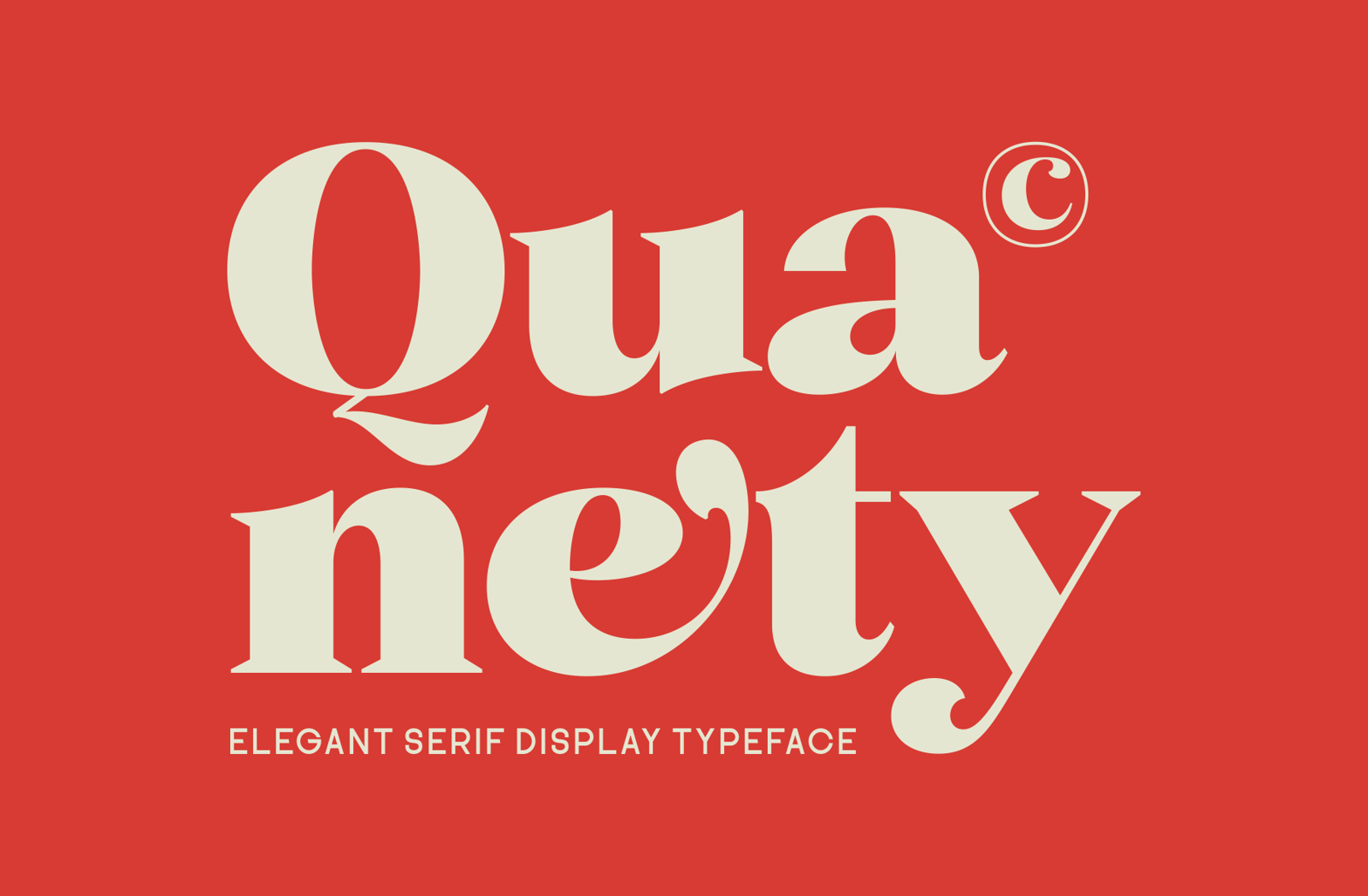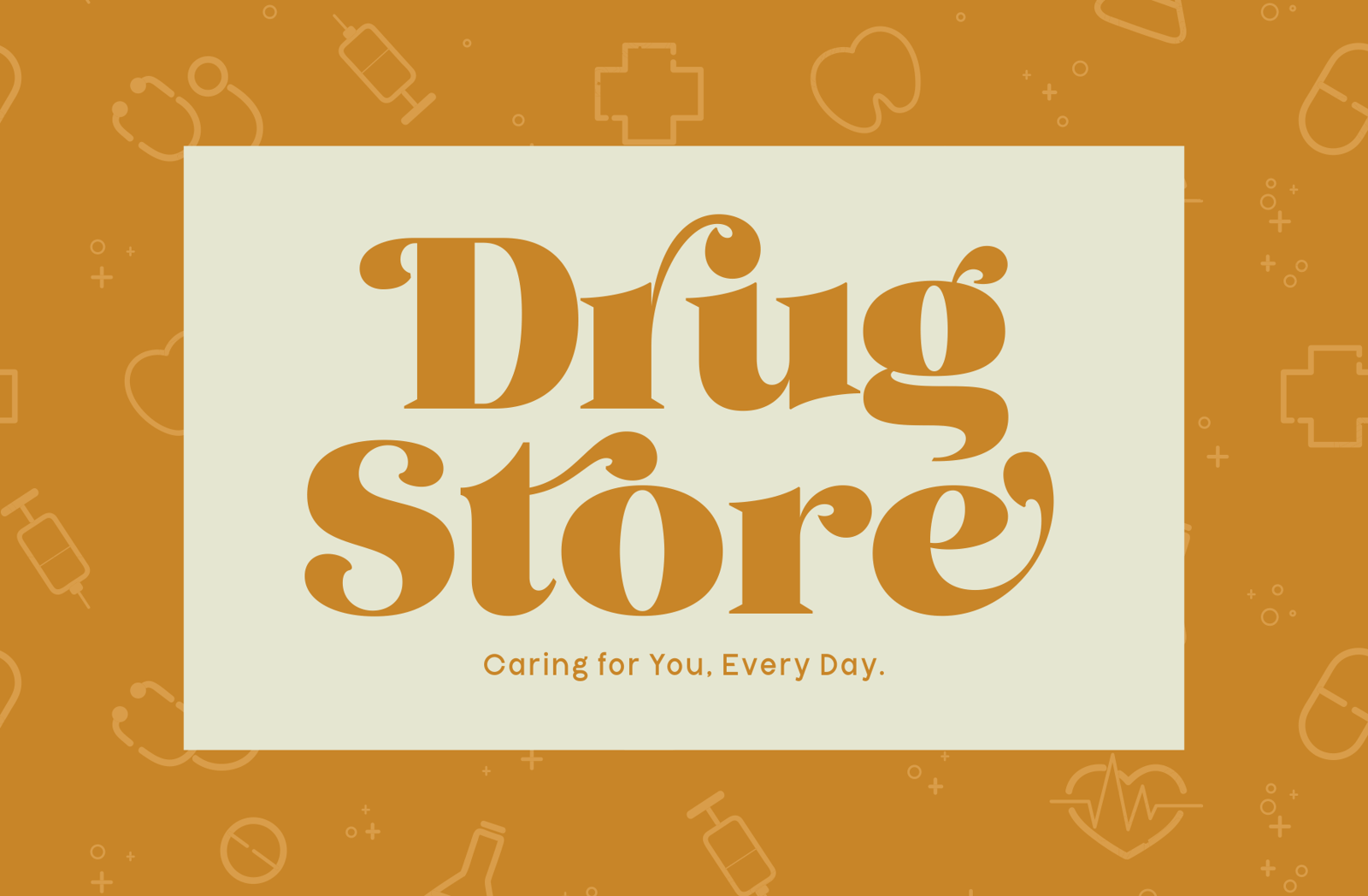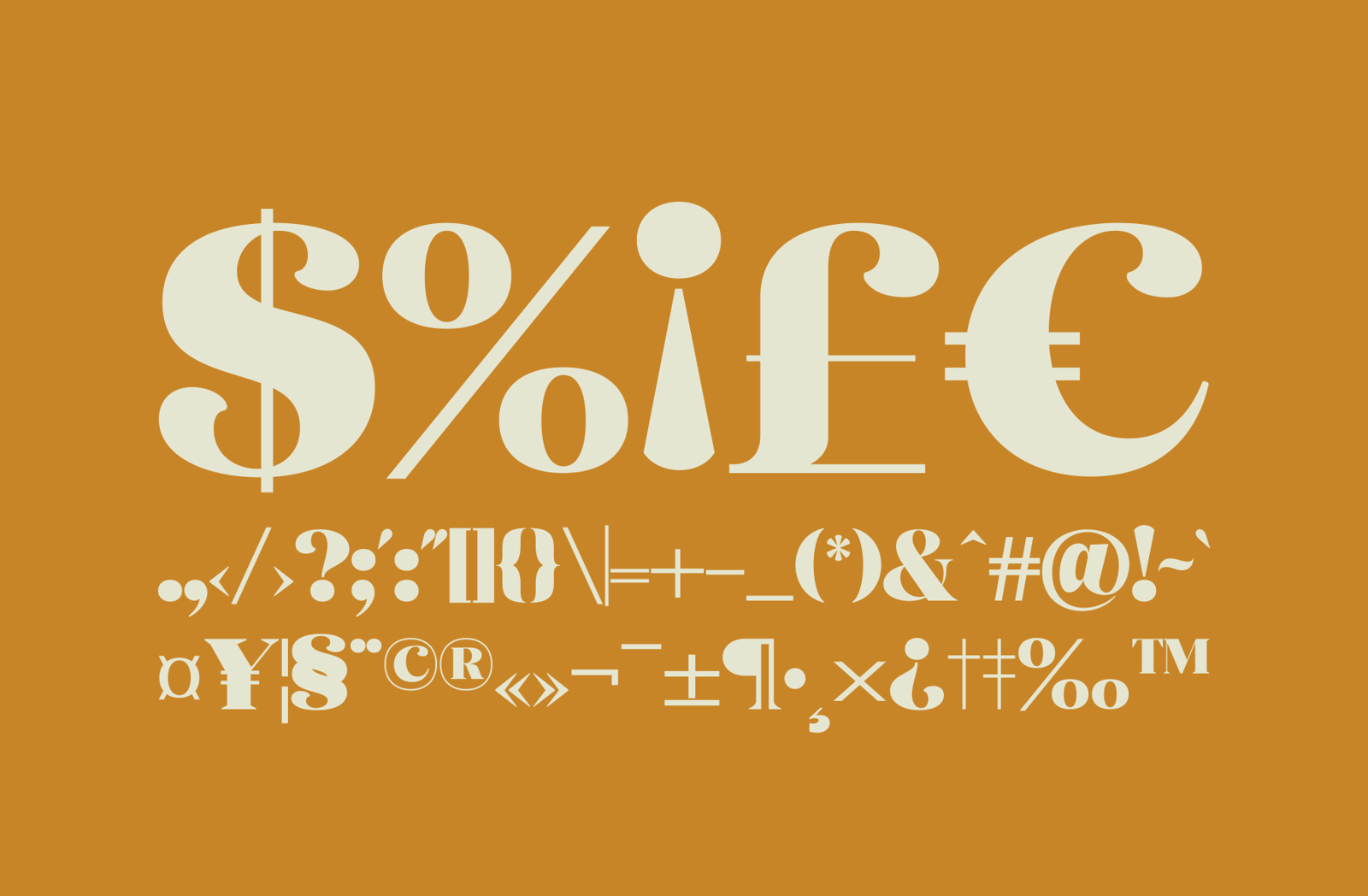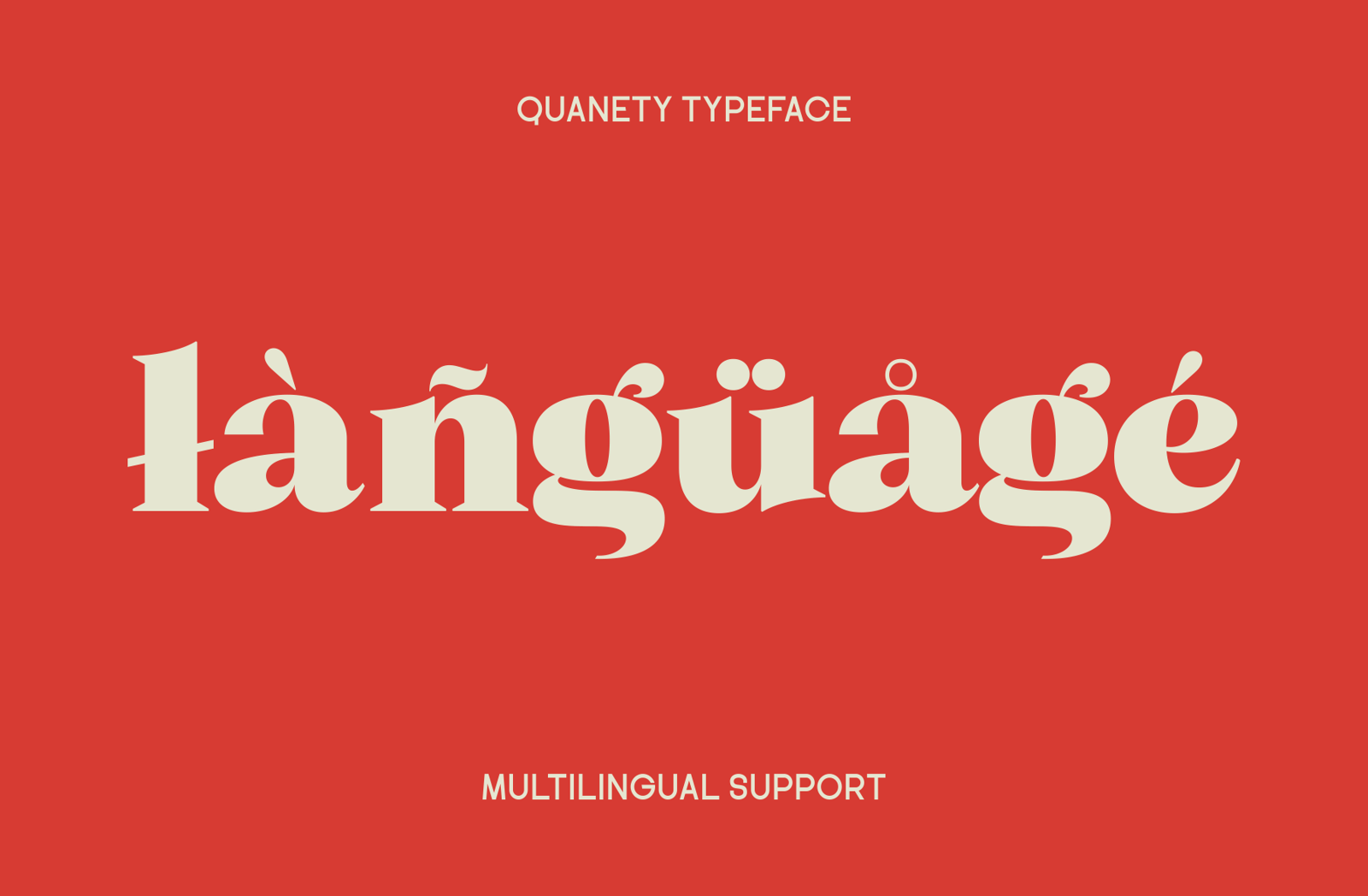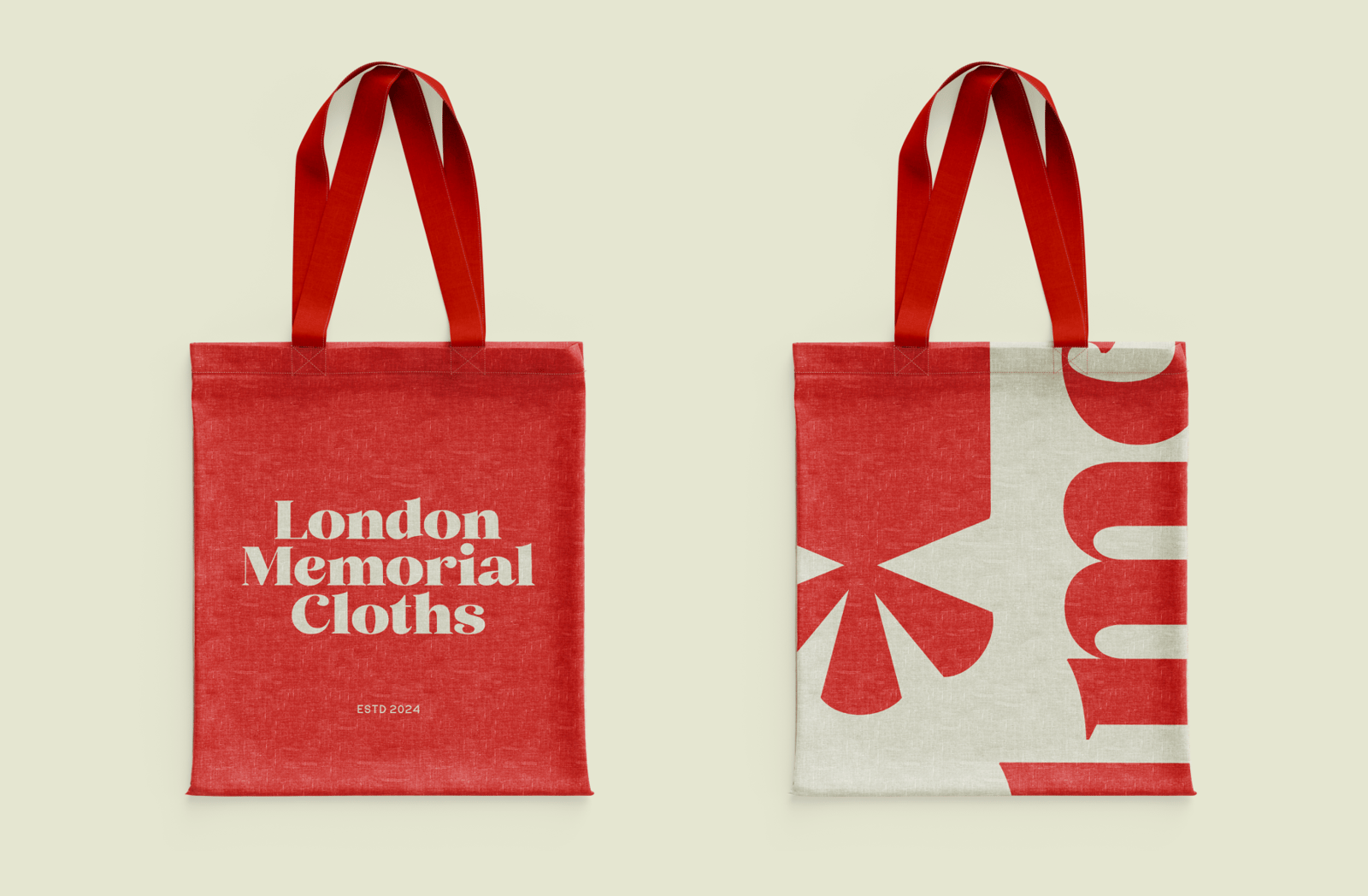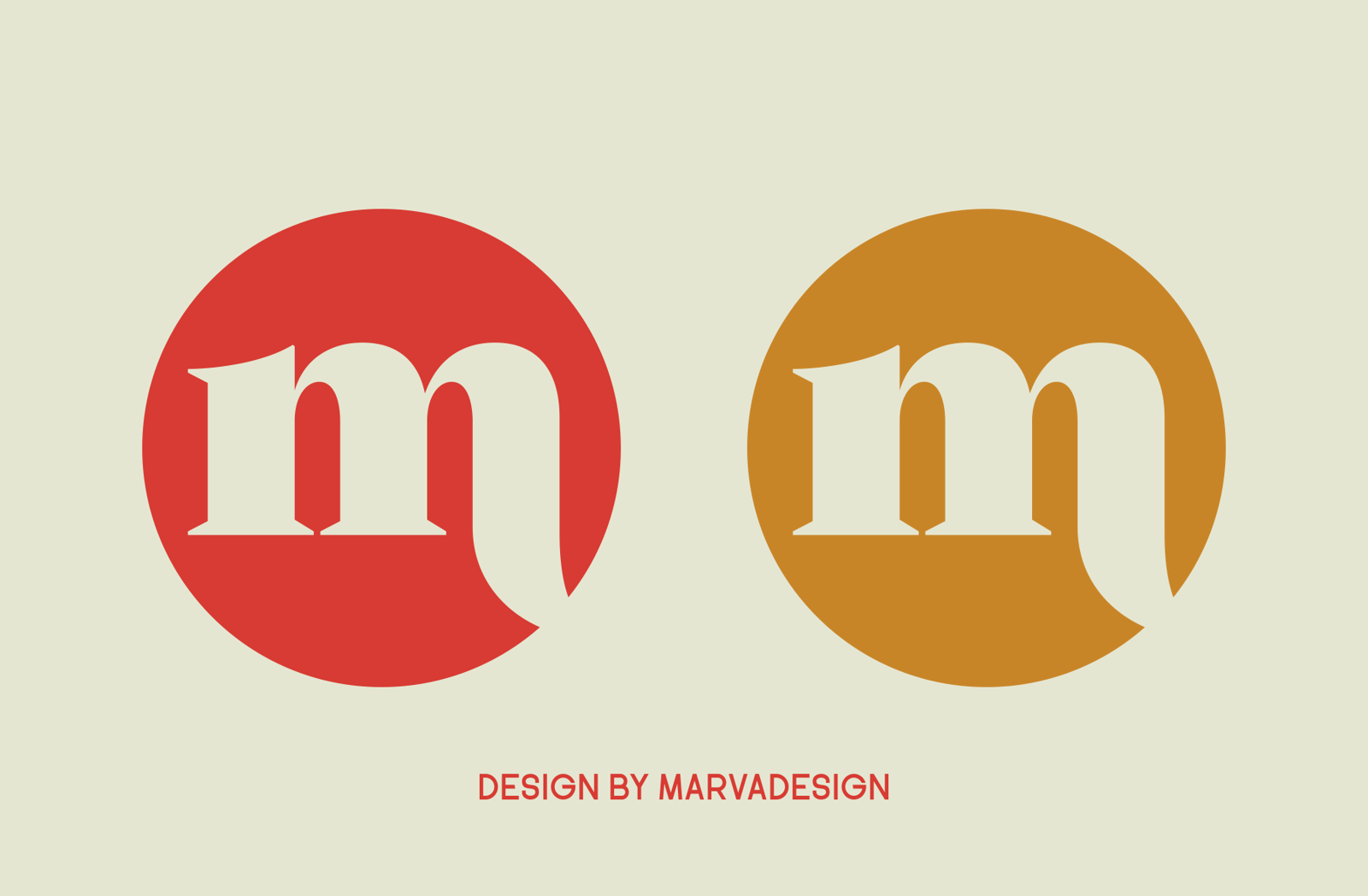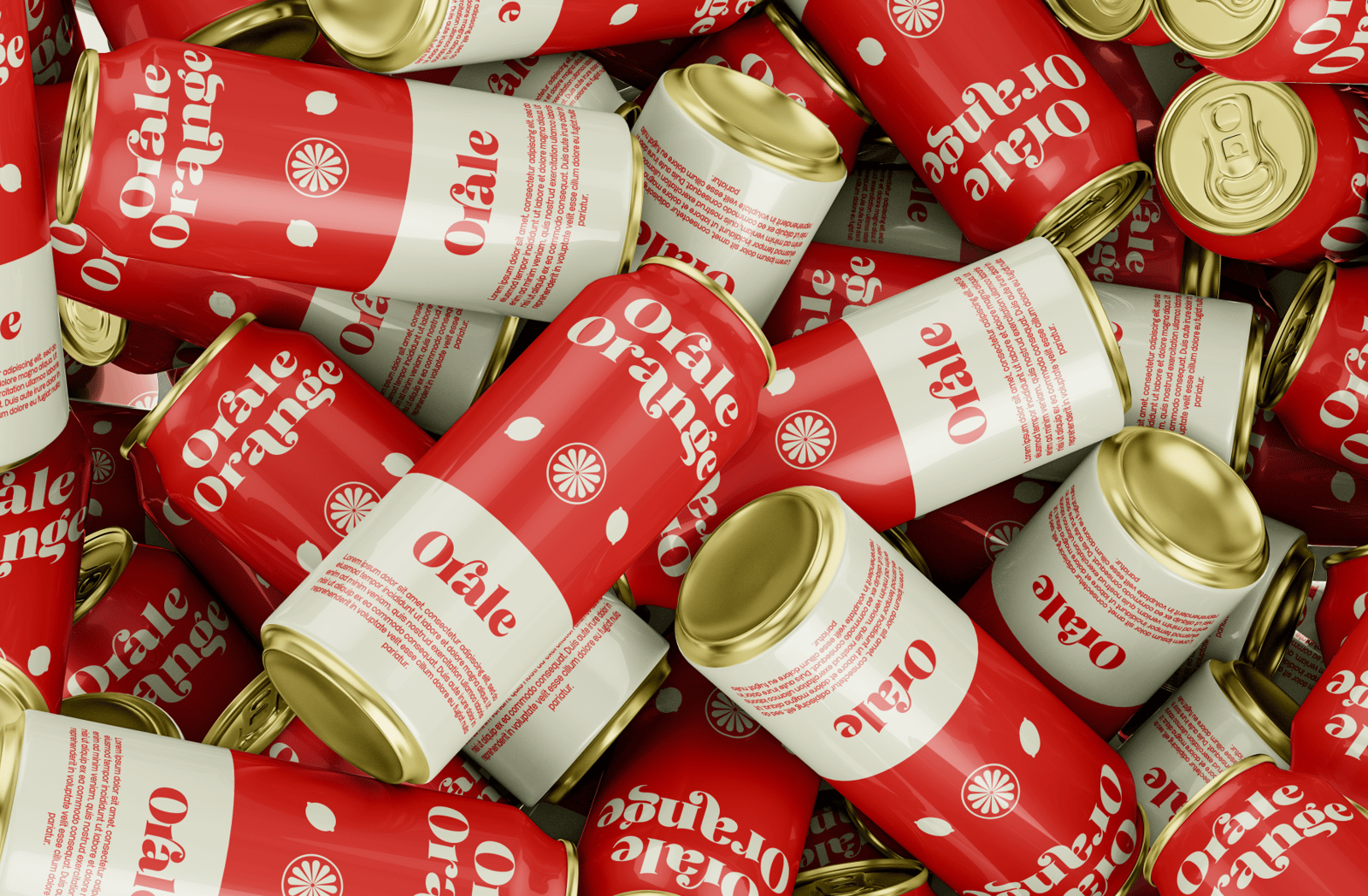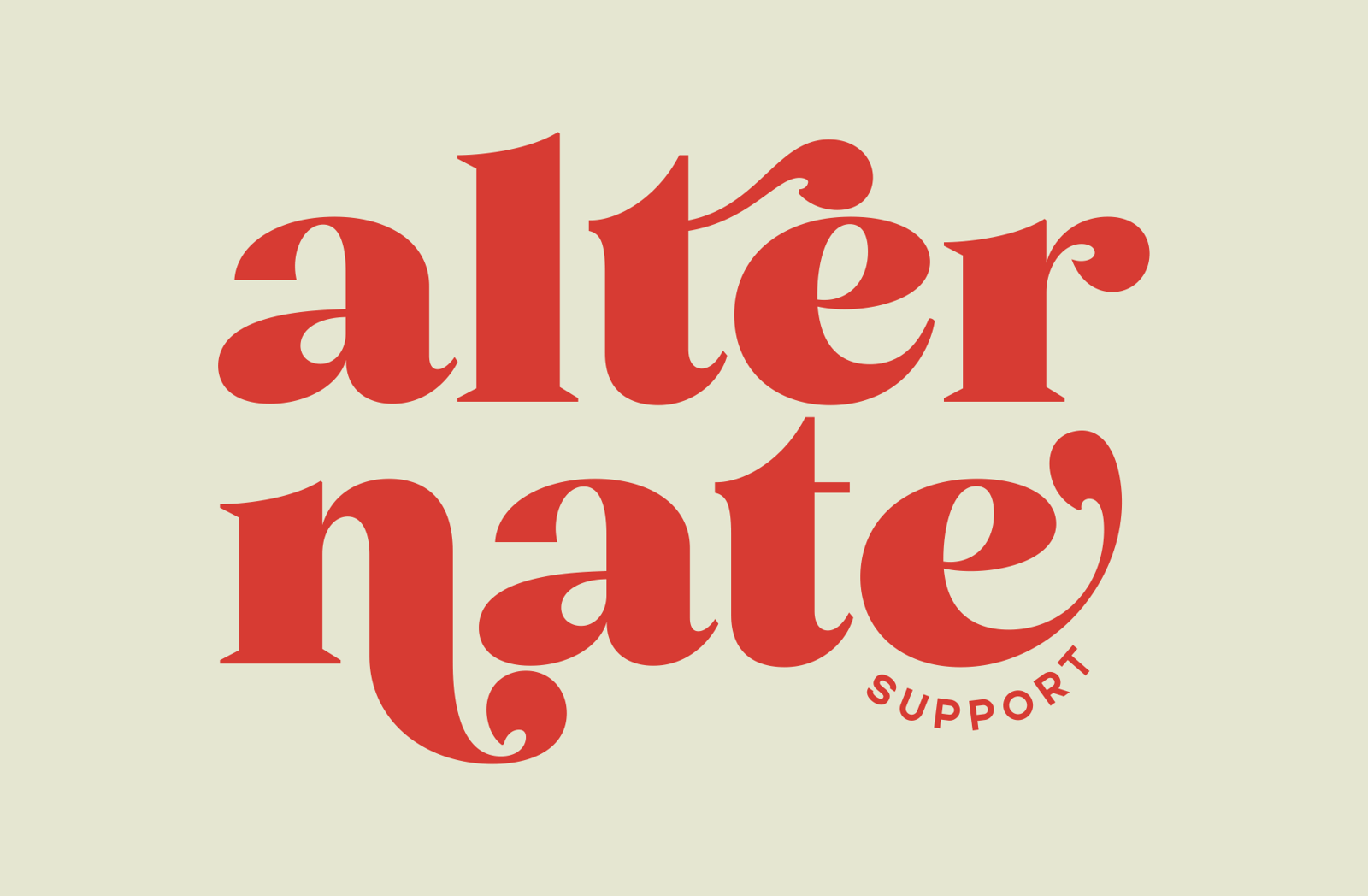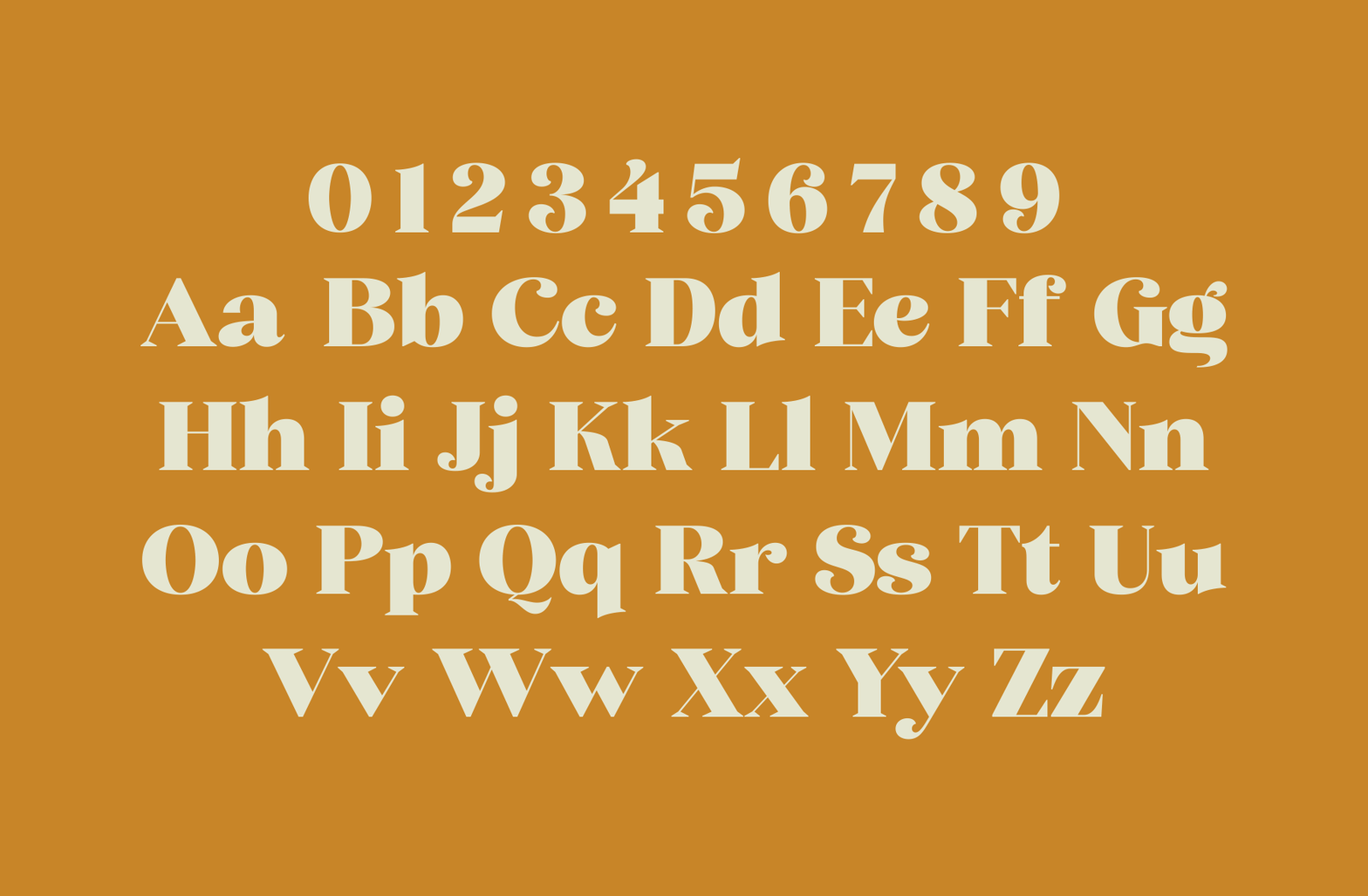
Quanety Font
Introducing Quanety is an elegant display font characterized by its sophisticated and refined design. This typeface boasts a wide range of alternative characters, enabling versatile and unique typography that infuses any text with distinctive personality. With a bold weight, Quanety is particularly suited for brand identity, product packaging, posters, and other prominent visual displays.
The font’s substantial thickness makes it ideal for headlines and titles, ensuring your text stands out with a commanding presence while preserving an elegant and stylish appearance. Perfect for designers seeking to create striking and memorable visuals, Quanety provides both distinction and refinement in one beautiful package.